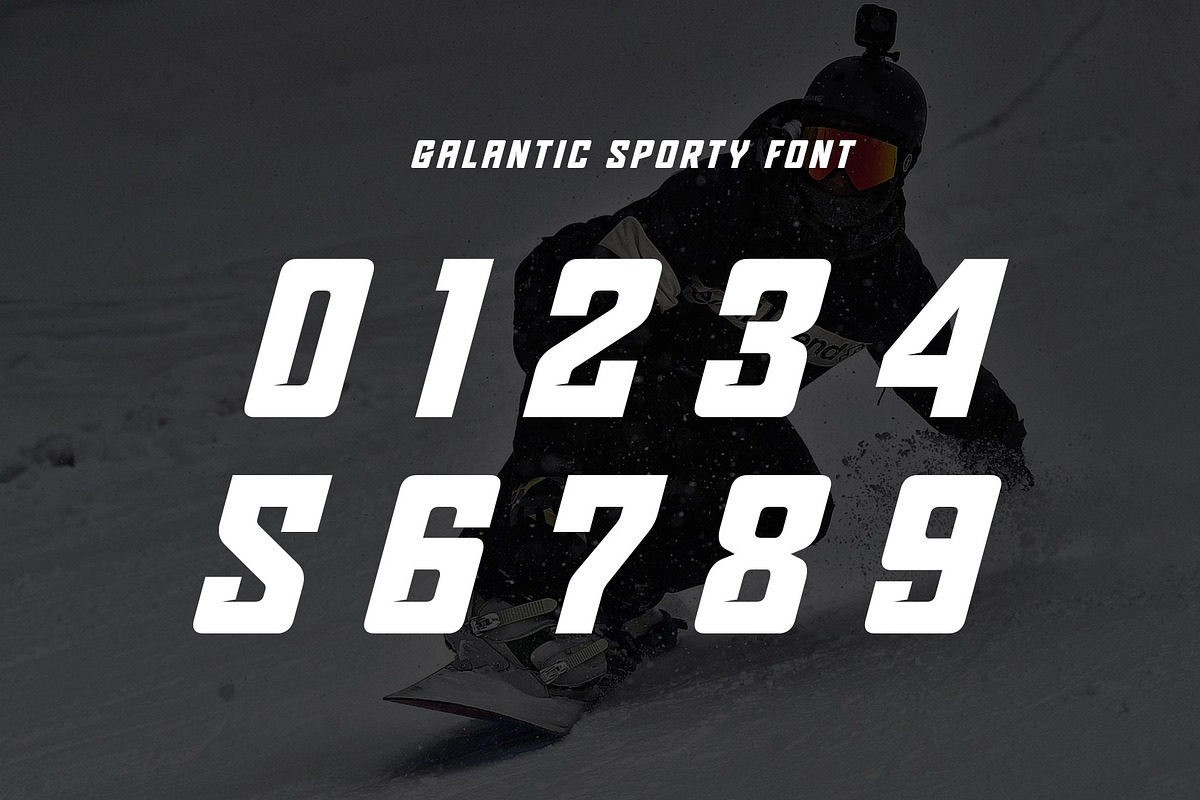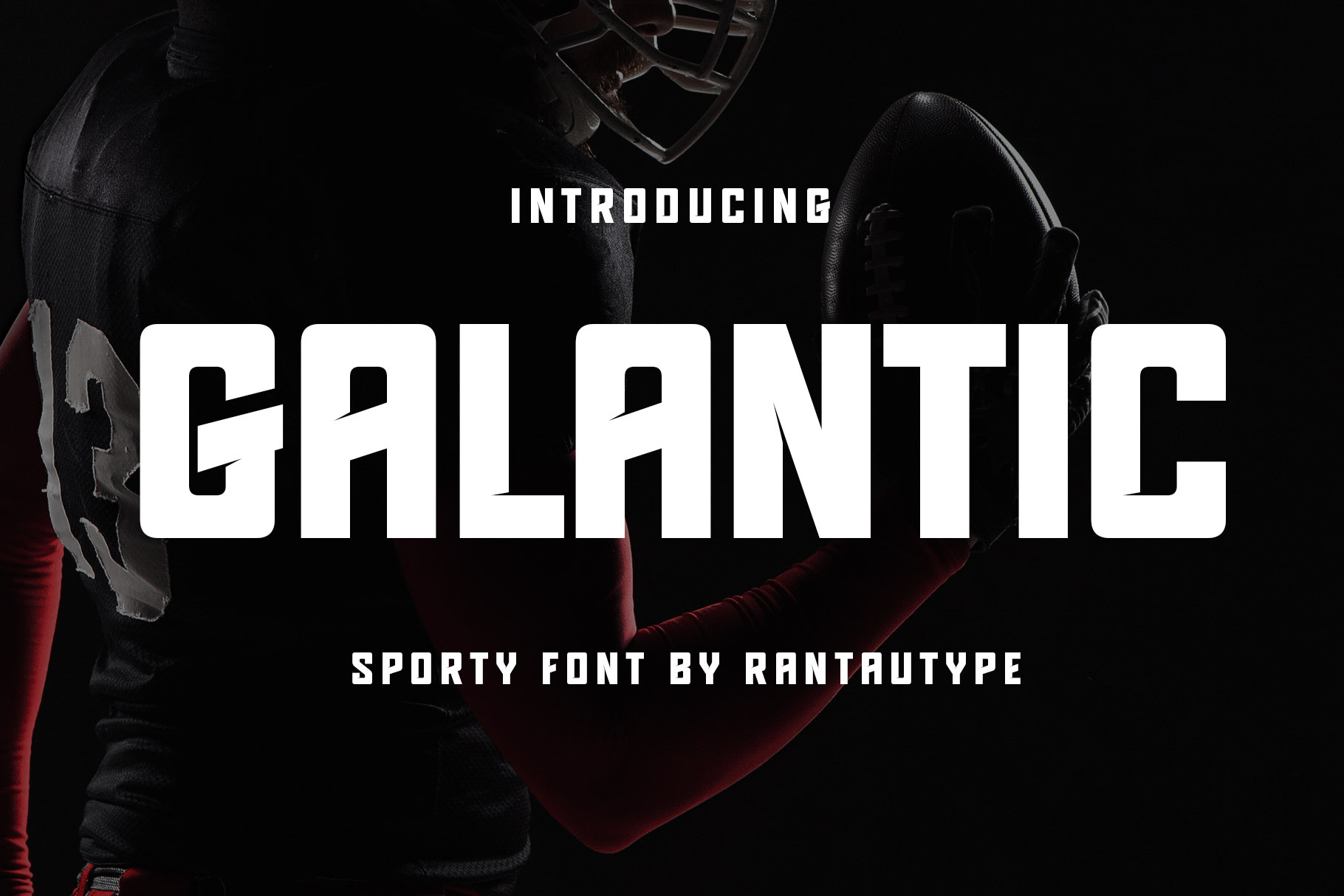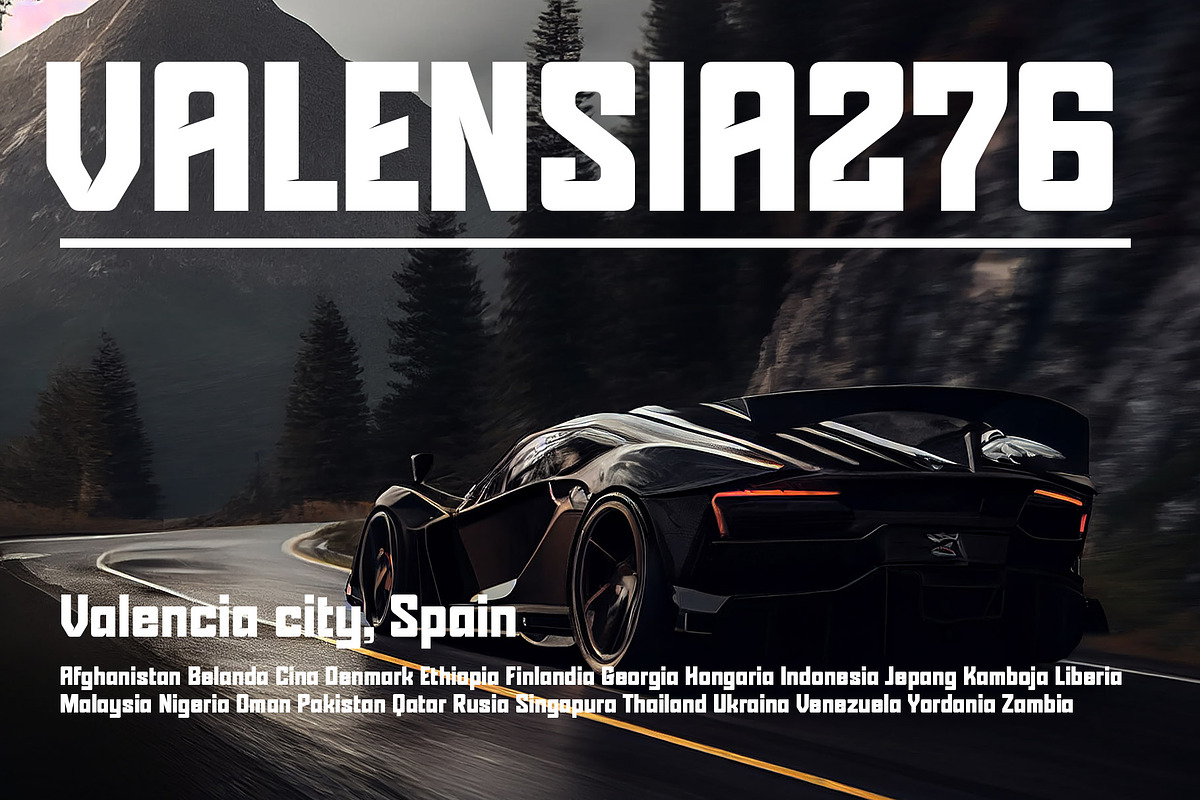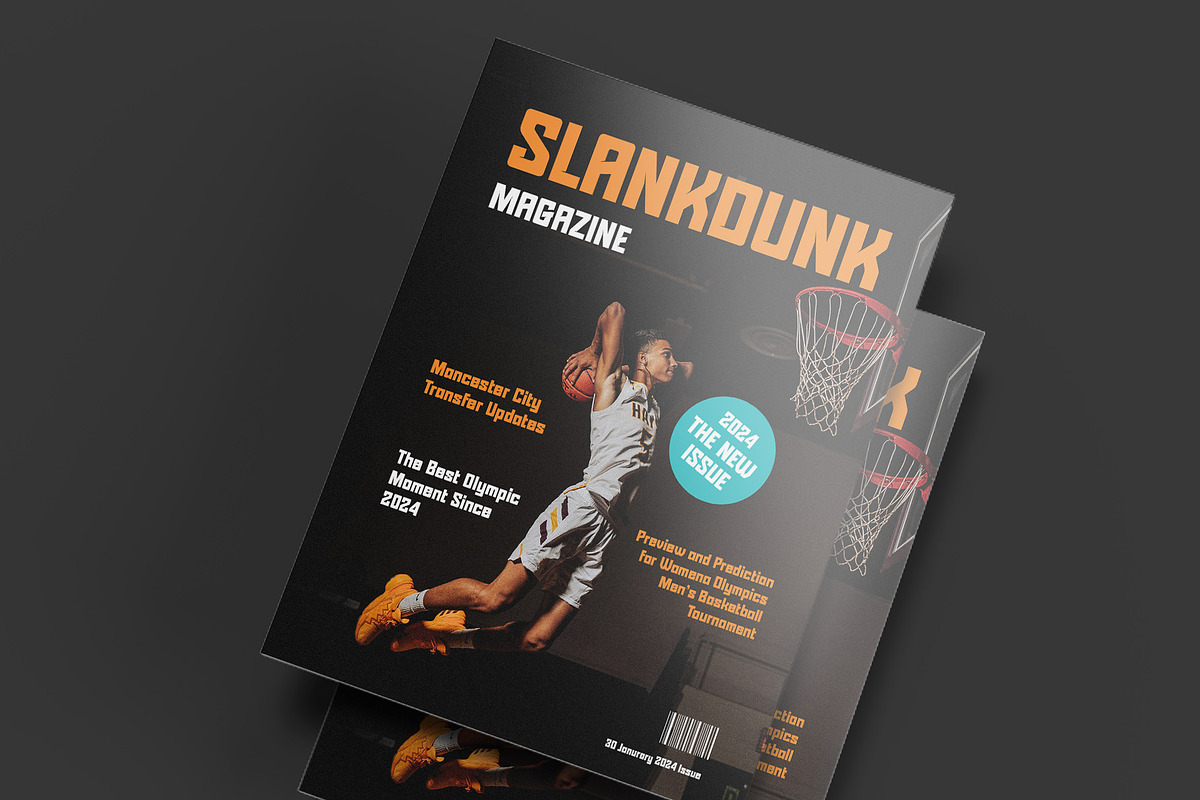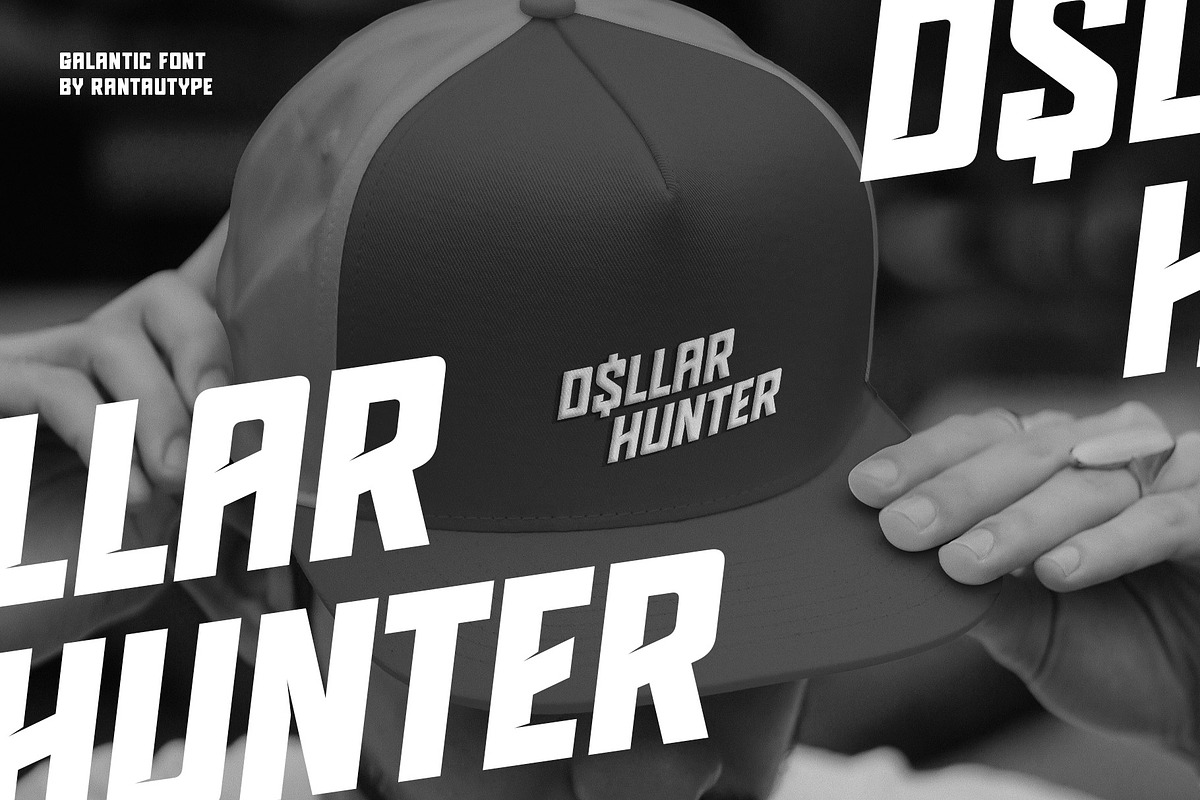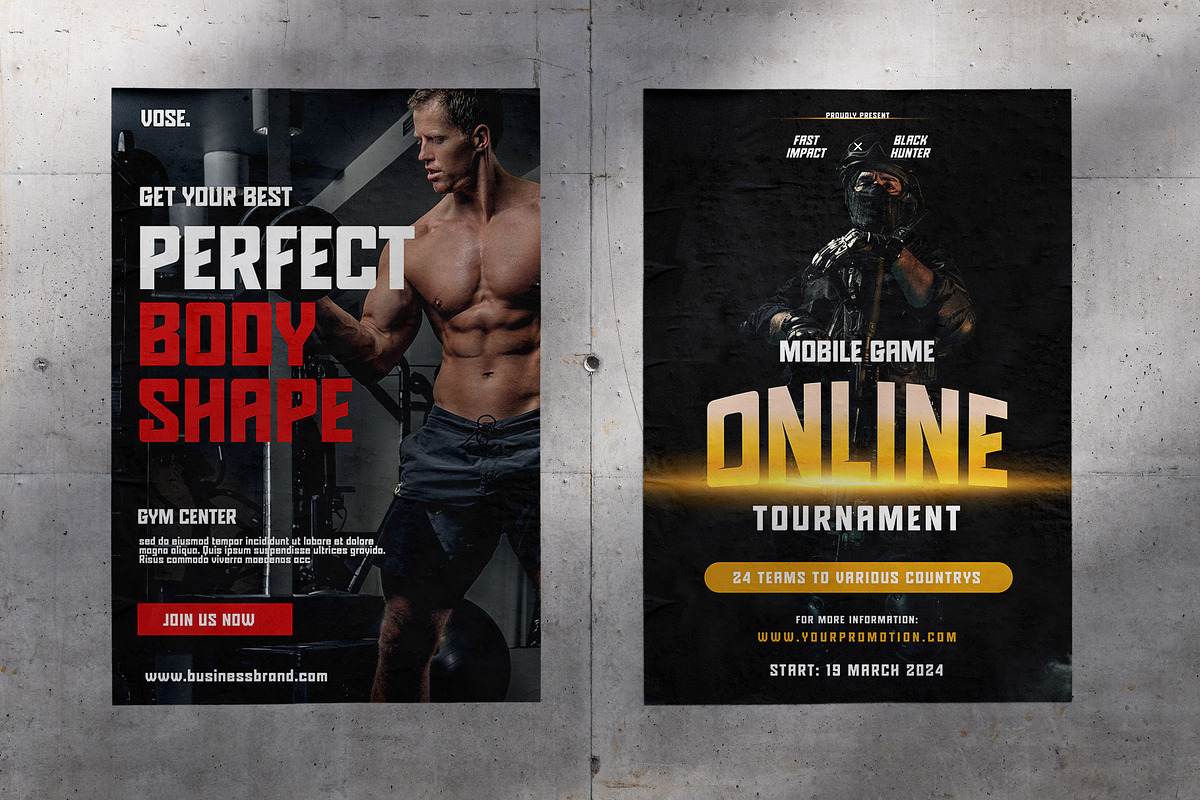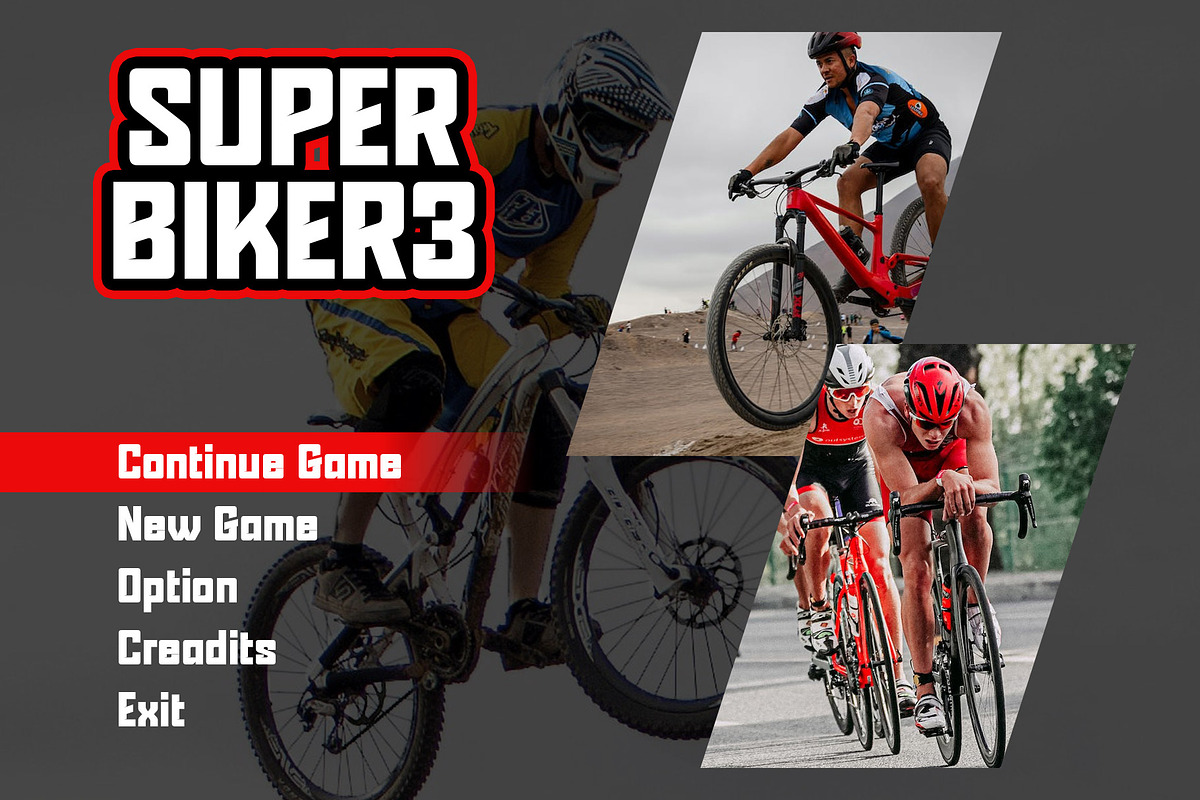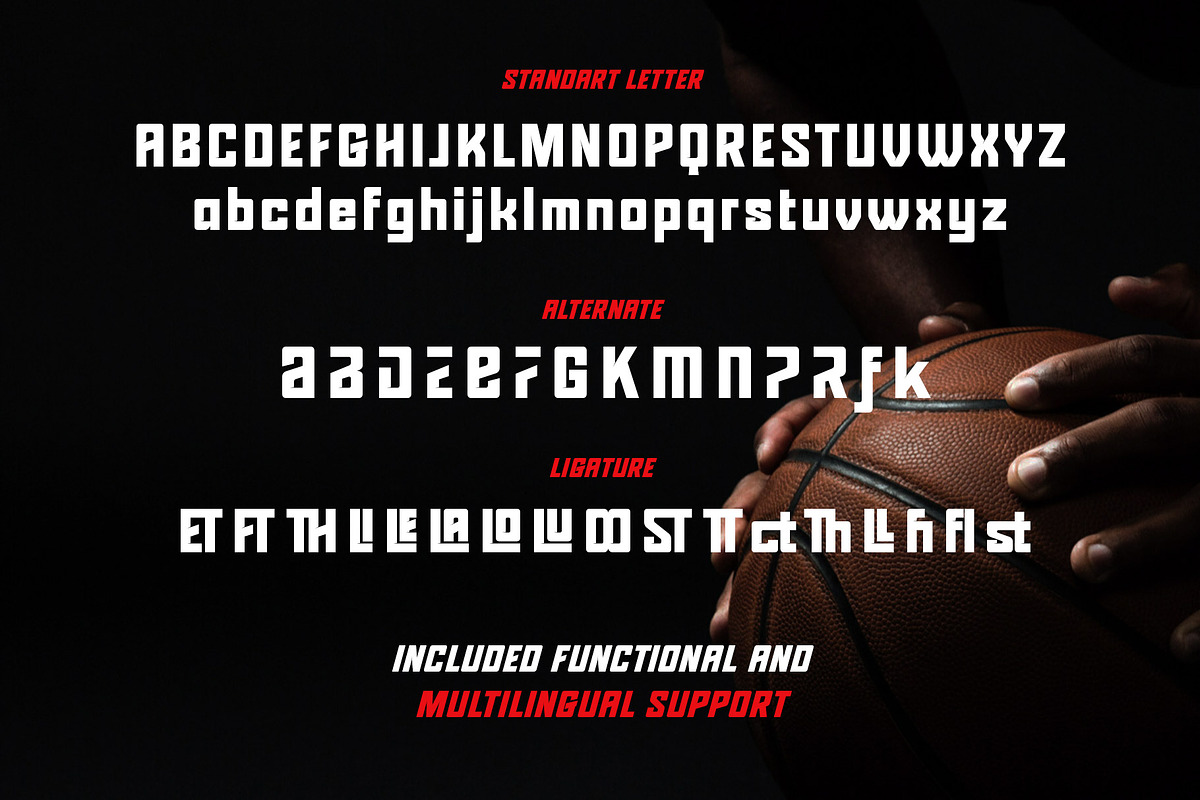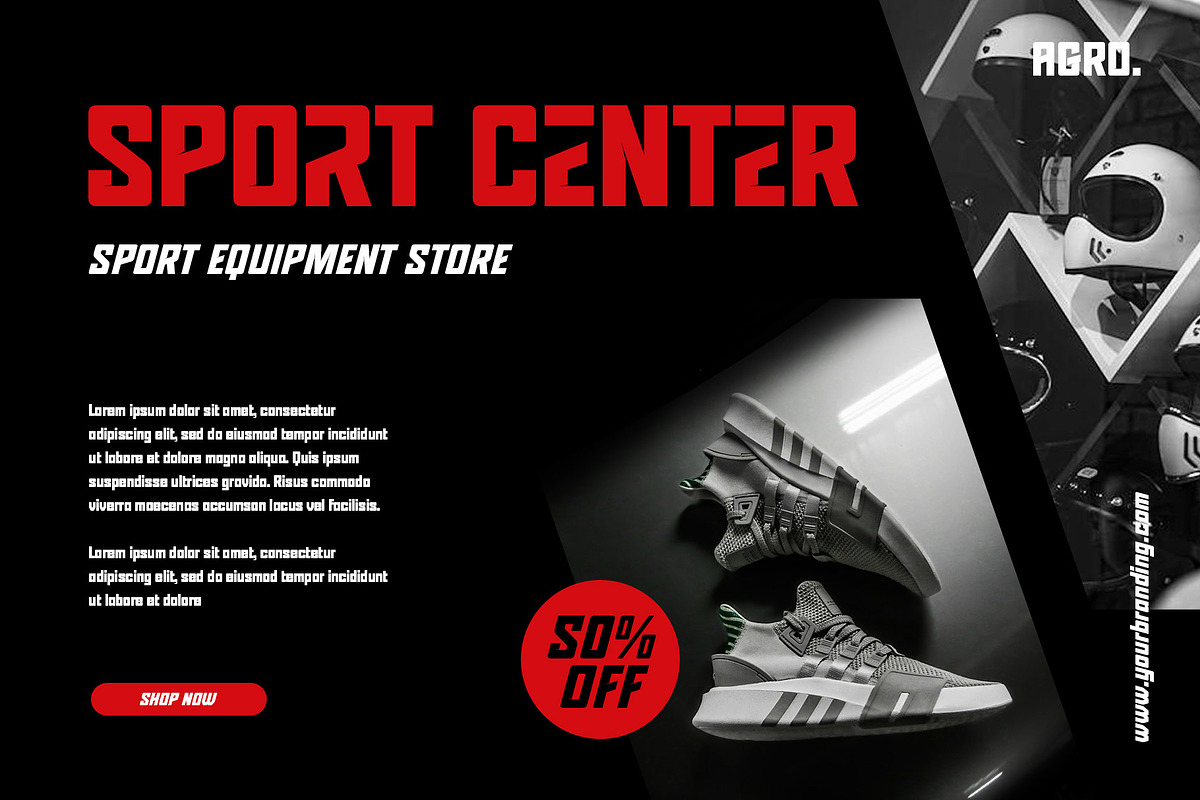
Galantic Sporty Font
Experience sporty in a visual form for your design with the galantic font. Inspired by sport brand and game concept, targeting the sport forward mentality with a bold shape to make the statement louder and modern than ever. Galantic come with visual elegance, strong curve, beautiful ligature, option for alternate and have already support multingual character.
A very versatile font that works in large and small sizes. Perfectly suitable for any creative endeavor, personal project, corporate, enterprise, industrial, sports brand, logo, esports, games, posters, film/movice, sport events, advertising, gym and fitness, digital futuristic concept and more. Now you can using Galantic to elevate you work.
- Standar letter A-Z and a-z
- Alternate and Ligature
- Multilinggual support
- Opentype Feature